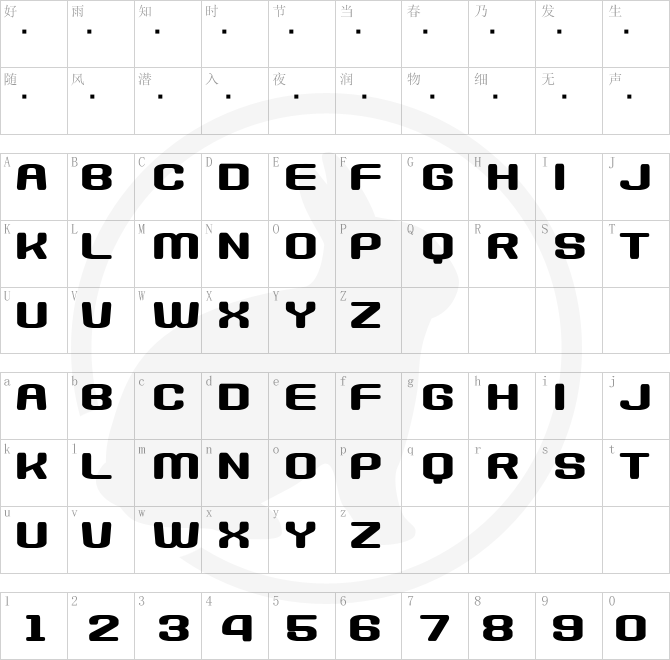
- Font Name:Nanikano Capsule
Nanikano-Capsule.ttf is a very beautiful artistic font, Nanikano-Capsule.ttf is widely used in the design and printing of various books and pictures,Nanikano-Capsule.ttf has a strong visual impact,Nanikano-Capsule.ttf is a commonly used font in newspapers, magazines and books, and is used in posters, e-commerce Poster design, store design, logo design, font design and other fields.Nanikano-Capsule.